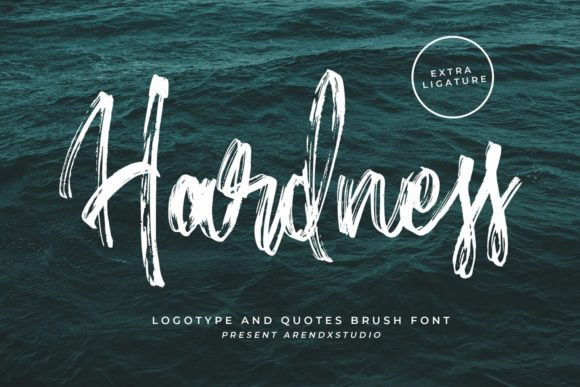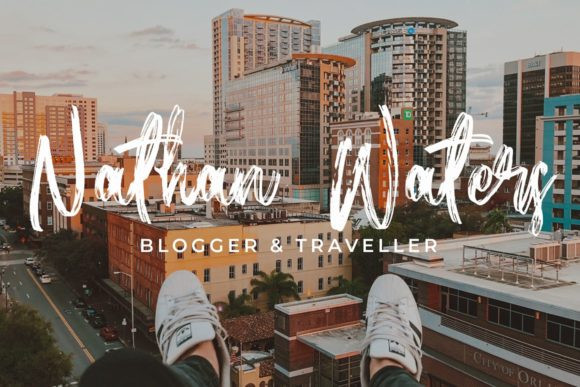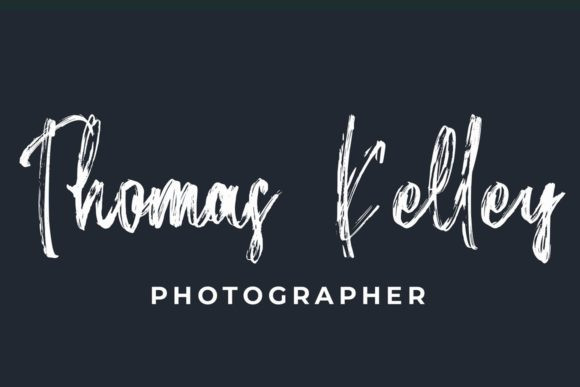
Hardness Font
Hardness is a spectacular brush style handwritten font. Add this beautiful font to each of your creative ideas and notice how it makes them stand out!